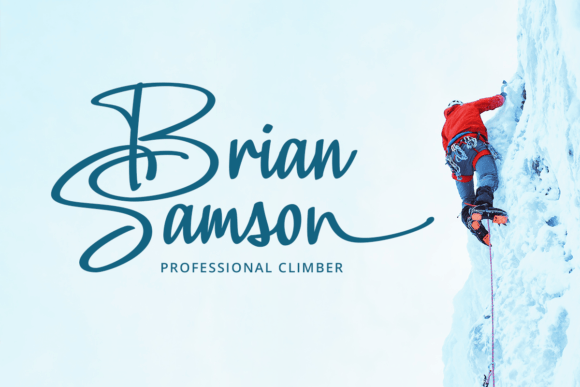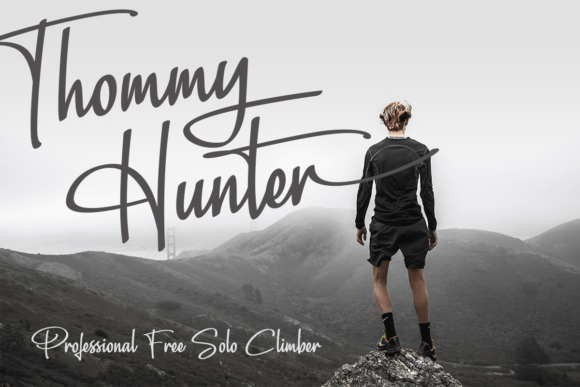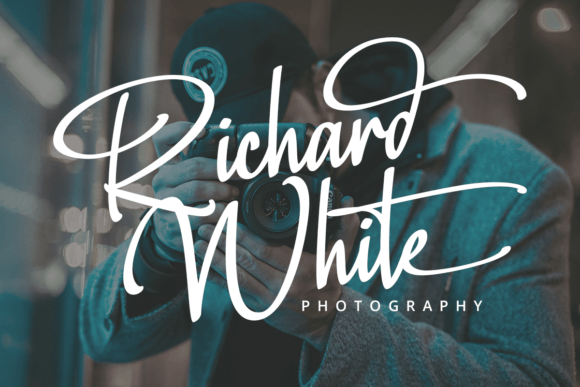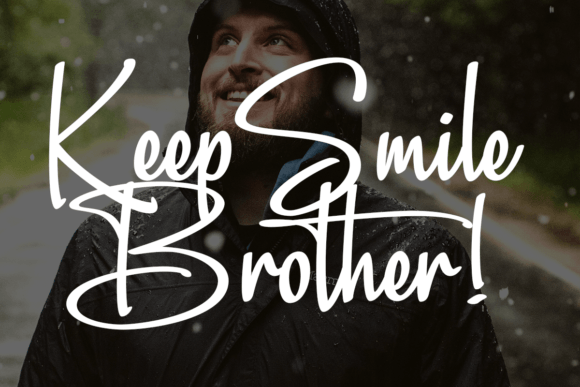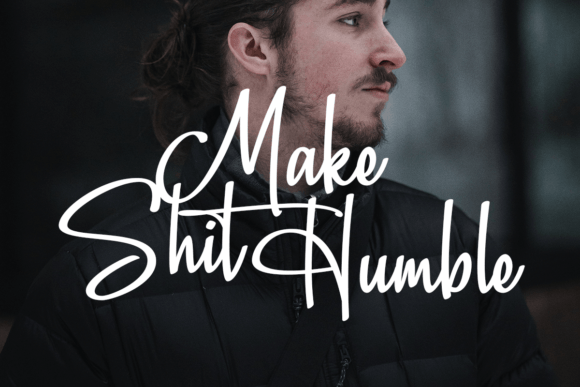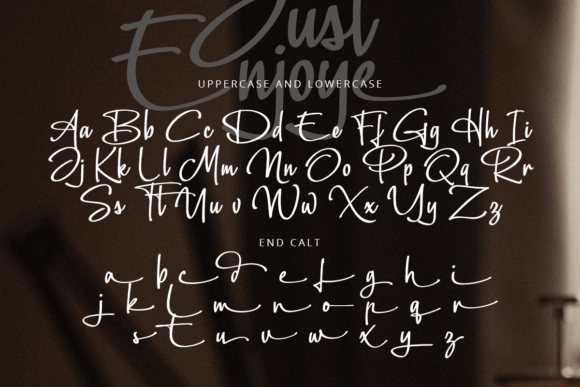
Introduction to Just Enjoye Font
Just Enjoye is a gorgeous handwritten font inspired by real calligraphy.
It is great for invitations, T-shirt designs, lettering, quotes, greeting cards, and much more Just Enjoye is perfect for those who want to make their work, projects, and writing look more natural and personal.
Just Enjoye Font offers exceptional quality and versatility, making it a valuable addition to your design toolkit. Whether you’re creating for personal projects or commercial use, Just Enjoye Font delivers professional results.